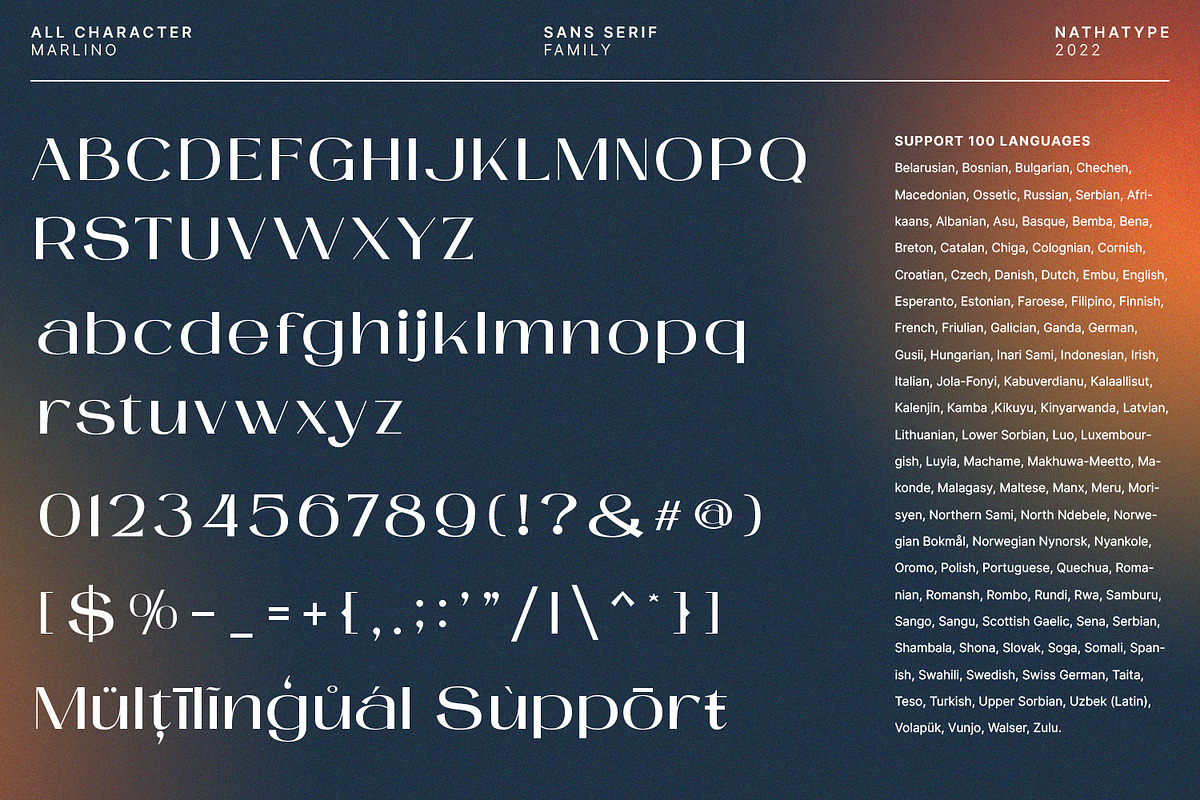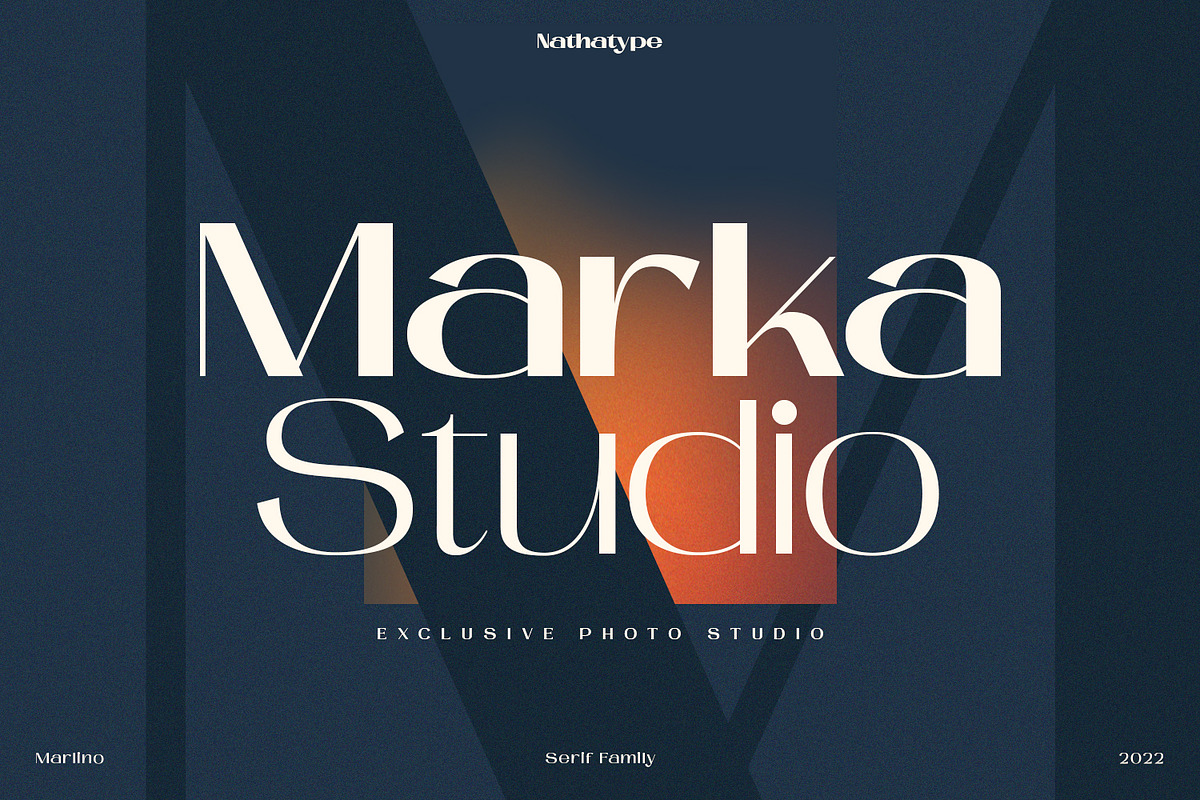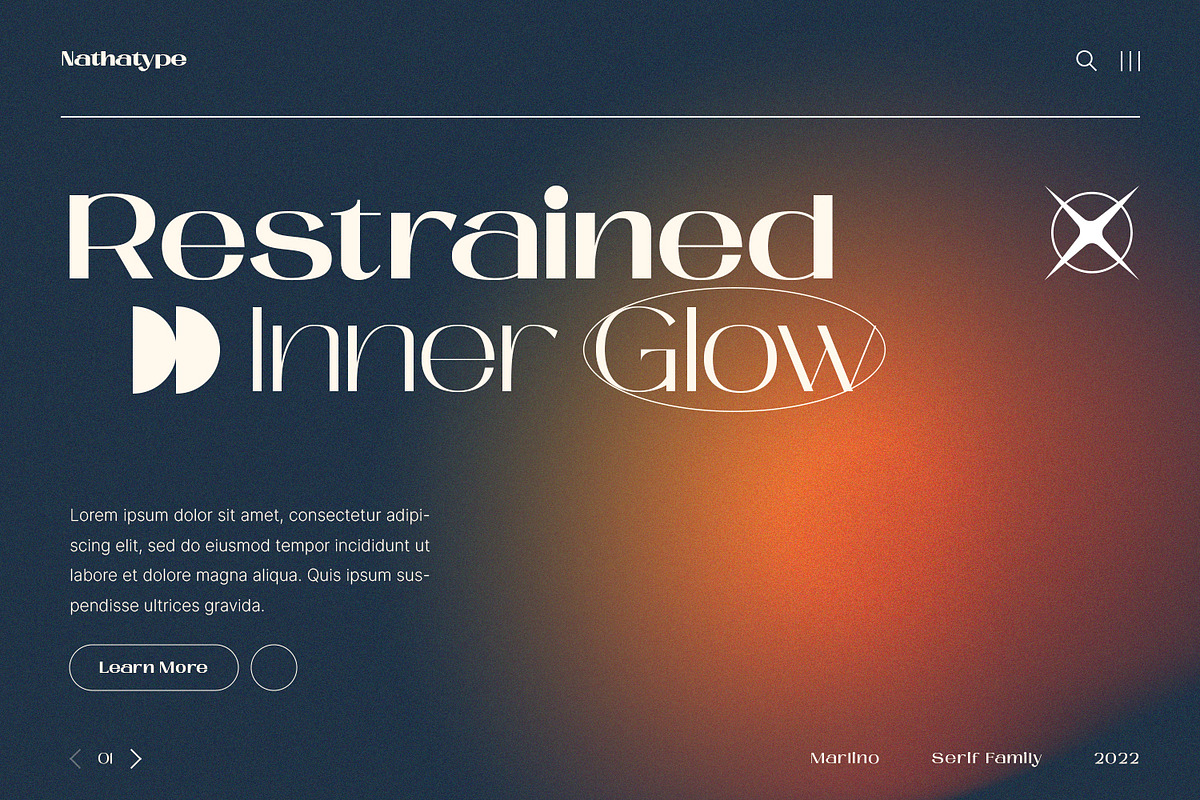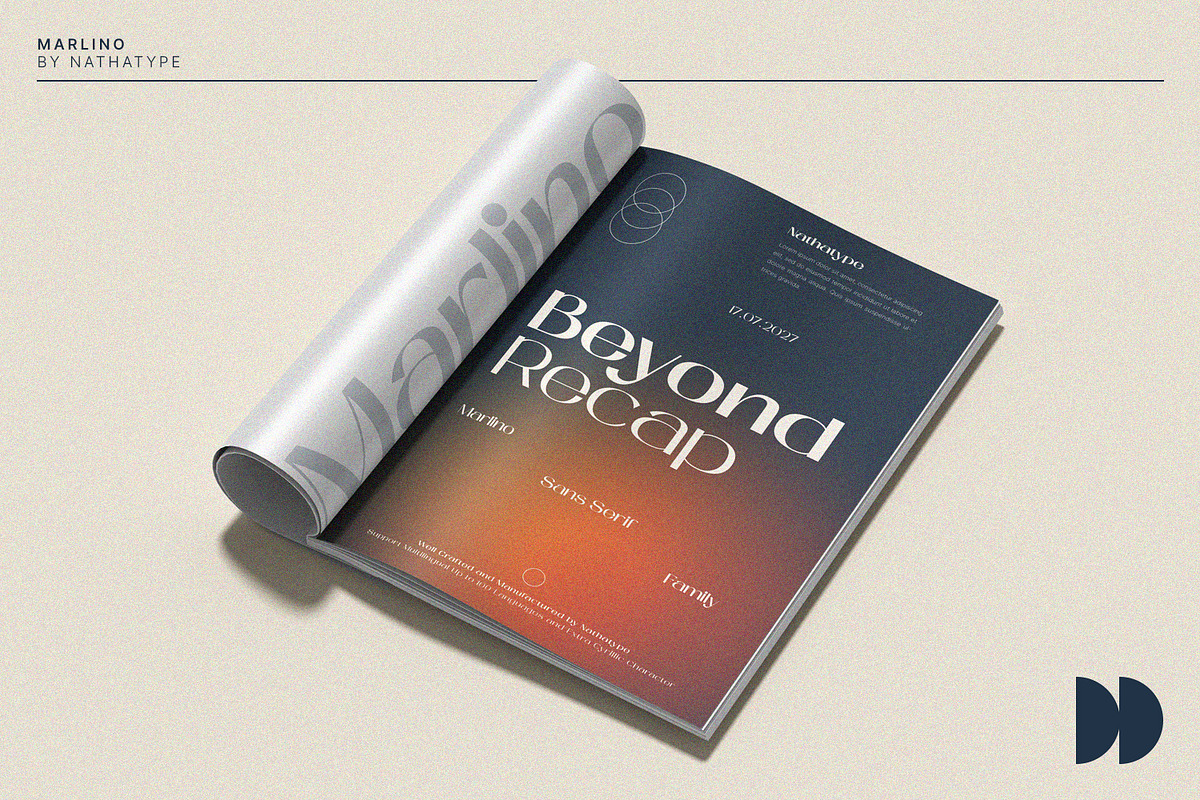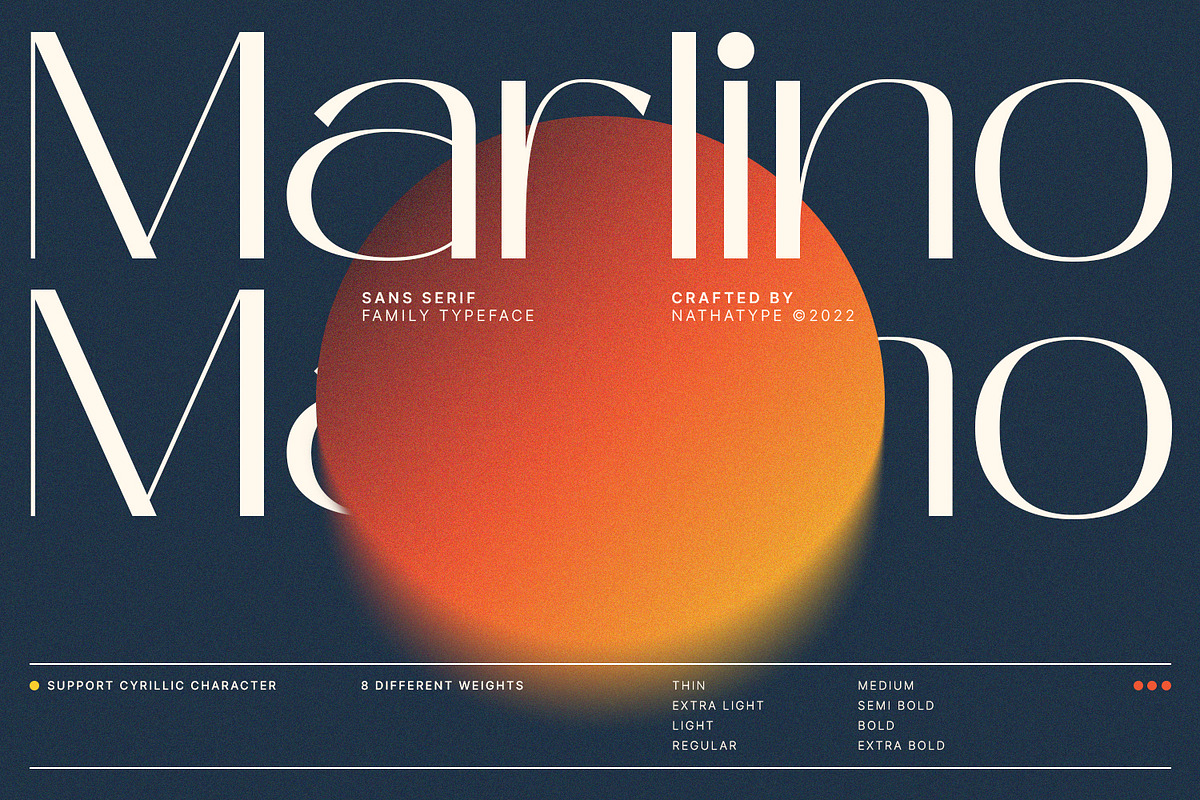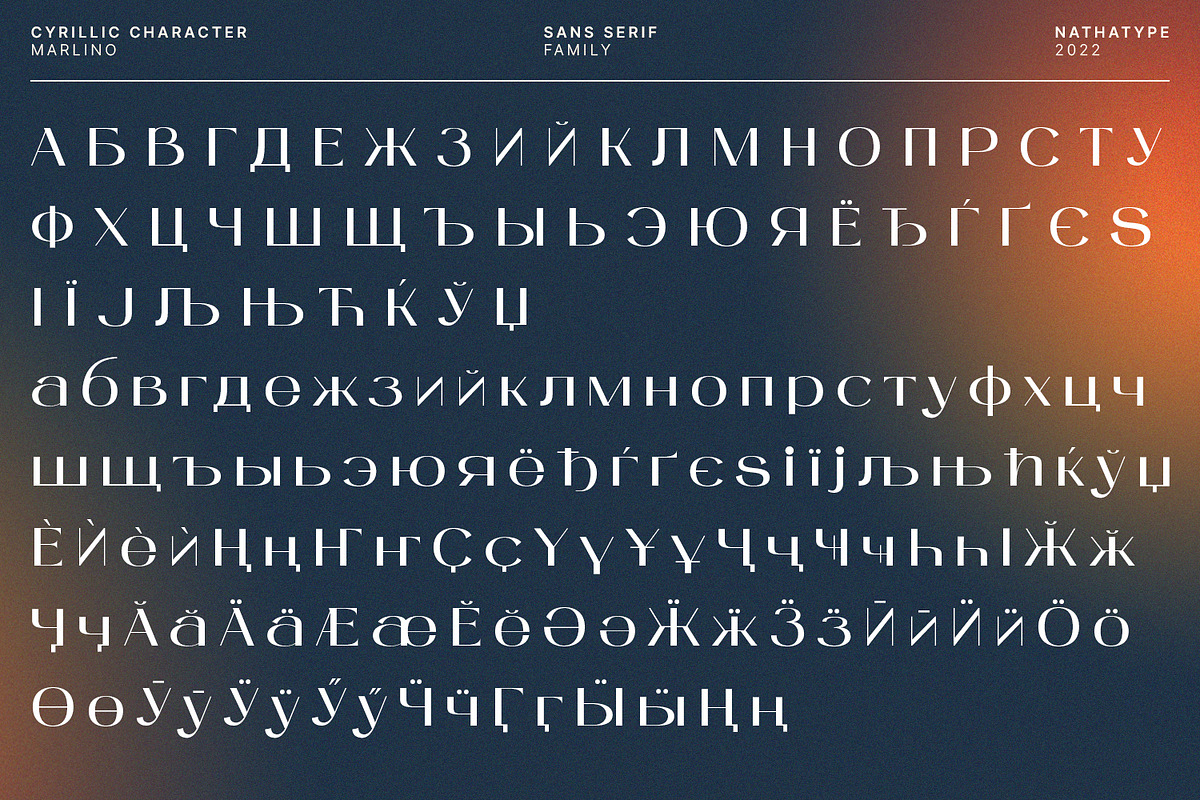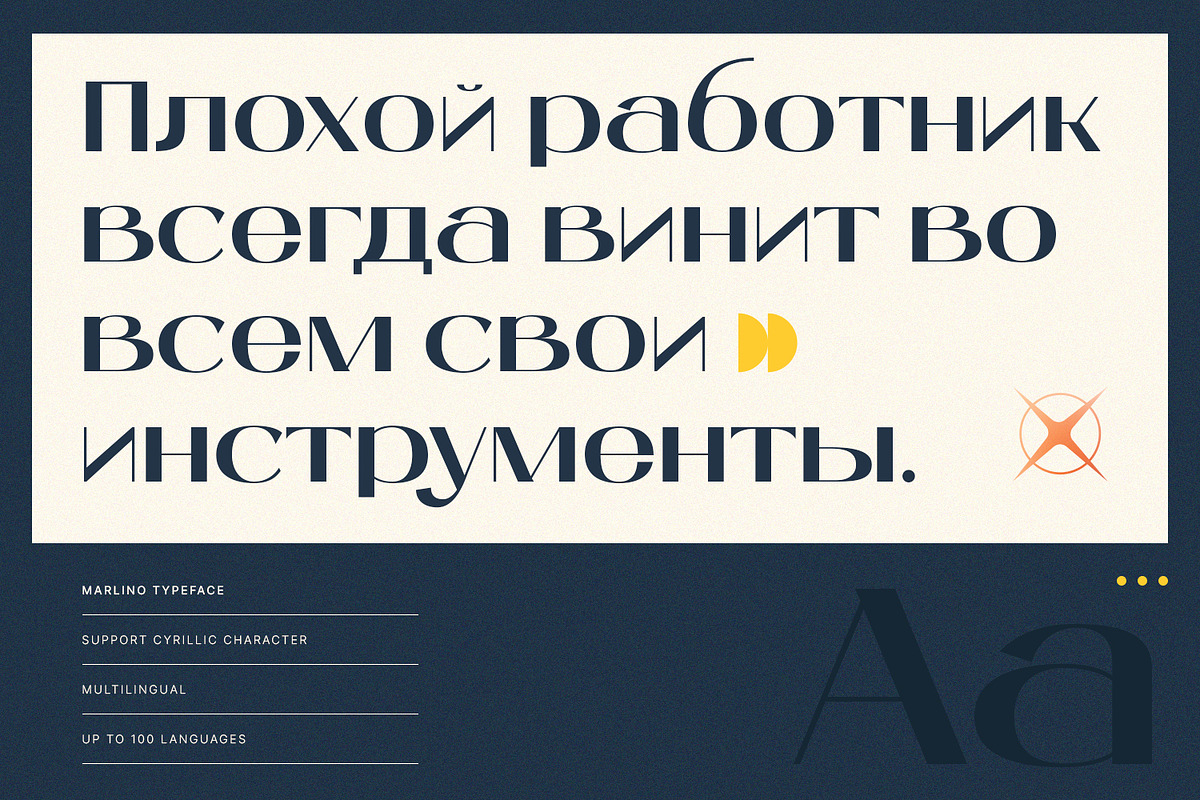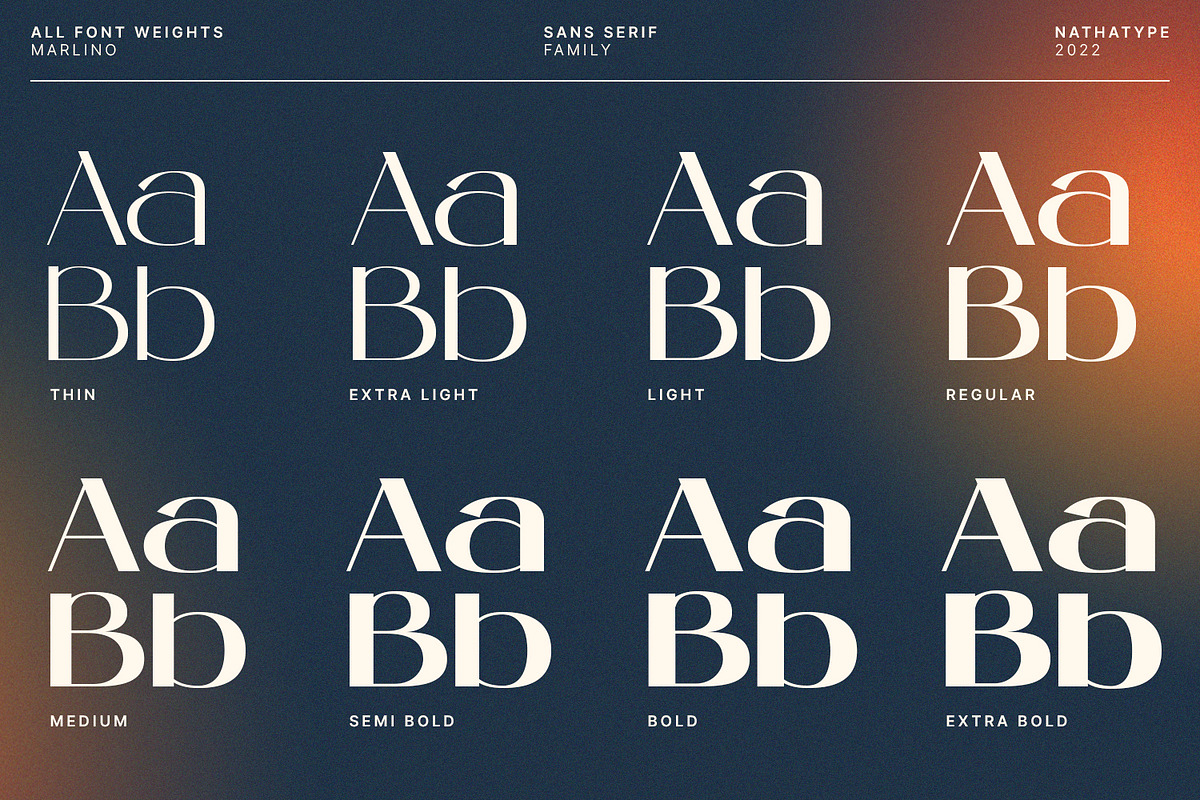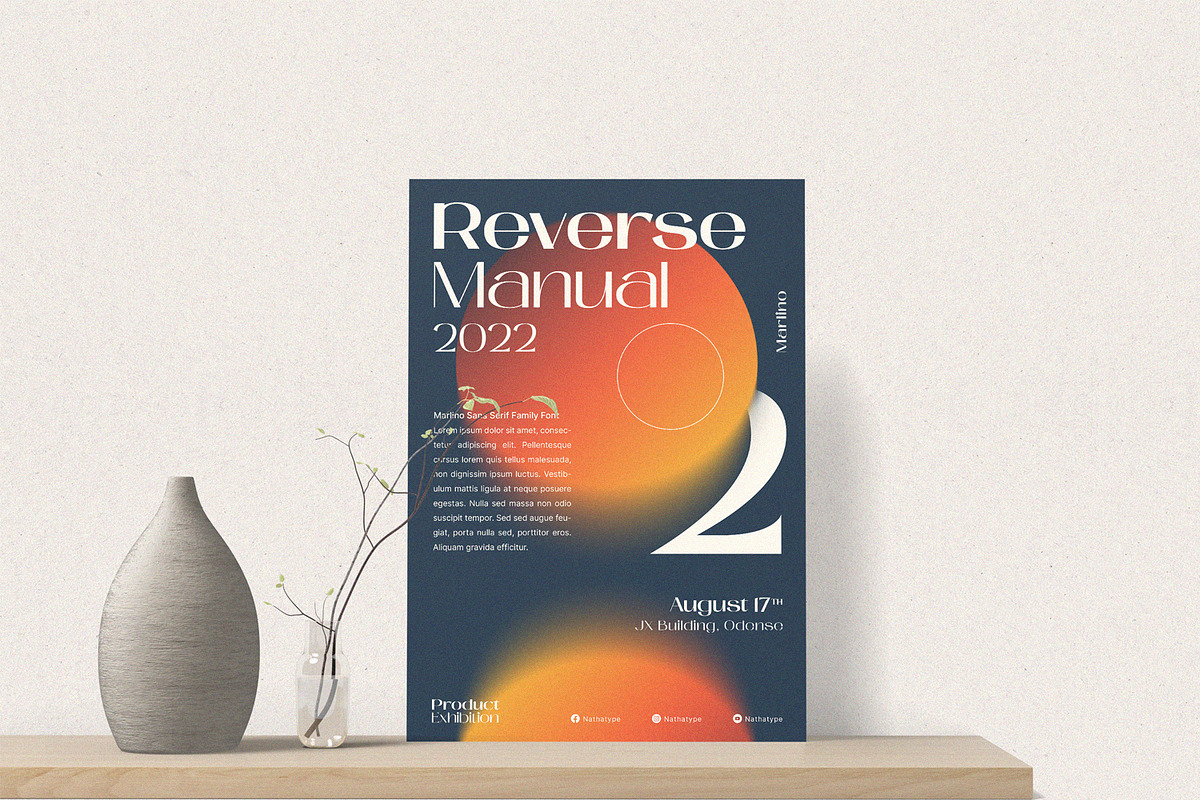
Marlino (Updated)
Do you want to achieve more?
Marlino makes your work got even easier. Marlino is a sans serif font family. It's simple, modern yet purposely function and definitely helps you achieve favorable design results. There are 8 different styles in this family. This variety in styles and character availability gives you some flexibility in terms of where and when you decide to use it.
It can be used for many design projects, such as poster, logo, book cover, branding, heading, printed product, merchandise, quotes, social media campaign, etc. Learn more about how to use it by seeing the font preview.